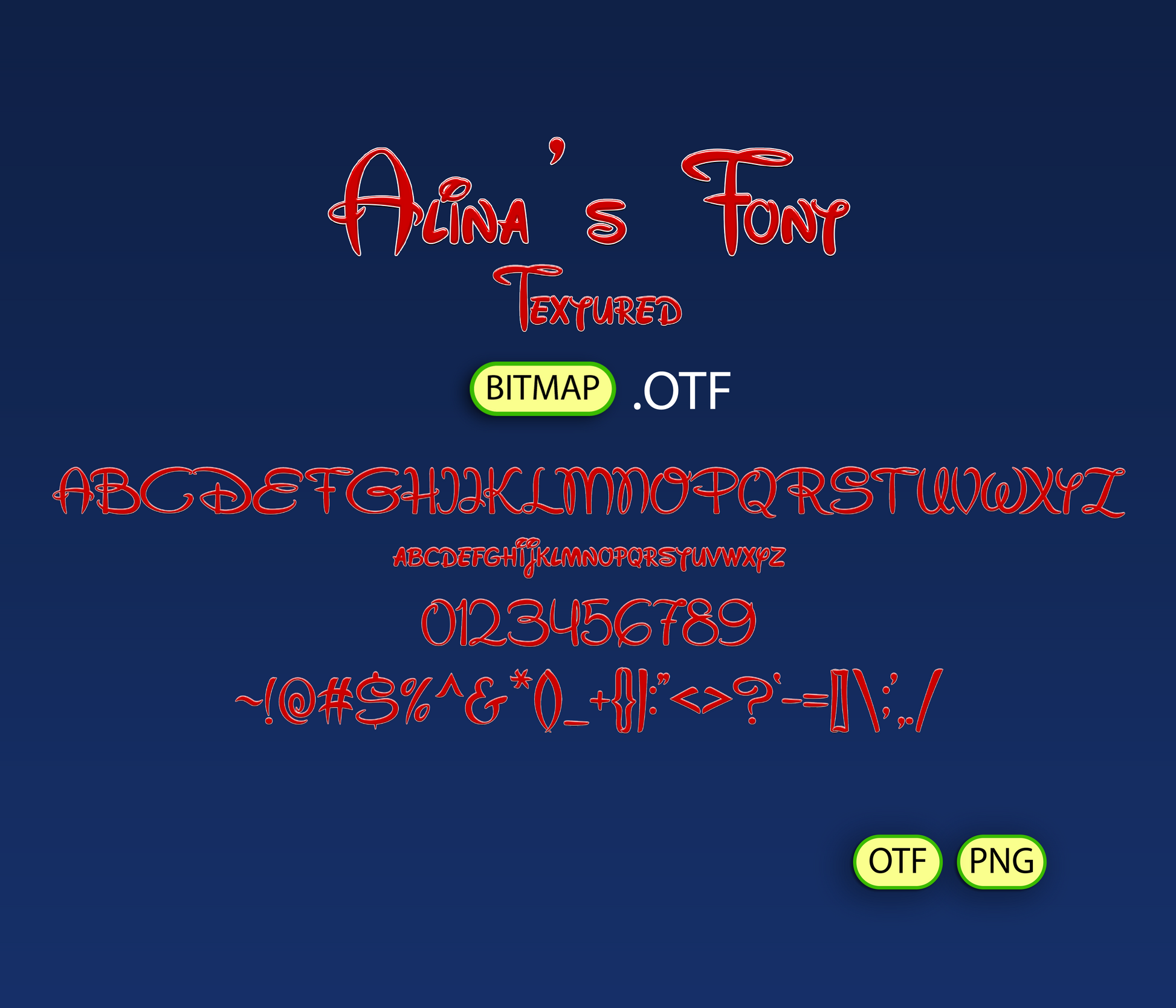
Wonder Tales Font Textured
Step into the enchanted world of beloved storytelling with our Wonder Tales font, capturing the essence of animated adventures and storybook magic. Perfect for fantasy fans, party planners, event organizers, and designers, this font brings the whimsical, sparkling spirit of cherished childhood tales to your projects. Create enchanted materials, merchandise, or digital content with the timeless joy of fairy-tale wonder.
Our Wonder Tales font features graceful, magical lines and storybook characters reflecting the world of childhood dreams. Ideal for:
1. Event Promotions: Create enchanted invites, posters, and banners for princess parties, fantasy celebrations, and themed gatherings that capture the spirit of magical storytelling
2. Merchandise Design: Perfect for t-shirts, posters, and accessories that showcase the enchanting world of fairy tales
3. Digital Media: Enhance websites, blogs, and social media with magical headers and graphics that express the joy of childhood wonder
4. Animation Content: Add authentic flair to fan art, storybook illustrations, and creative projects inspired by beloved animated classics
5. Personal Projects: Bring fairy-tale charm to scrapbooking, DIY crafts, and home decor inspired by the world of magical adventures
Our font pays tribute to the beloved world of childhood magic, empowering your designs with its enchanted and whimsical spirit. Whether crafting promotional materials, designing merchandise, or adding a magical touch to personal projects, this font communicates the timeless essence of storybook wonder. Ready to inject fairy-tale dreams into your creations? This font is your key to exciting, impactful design.